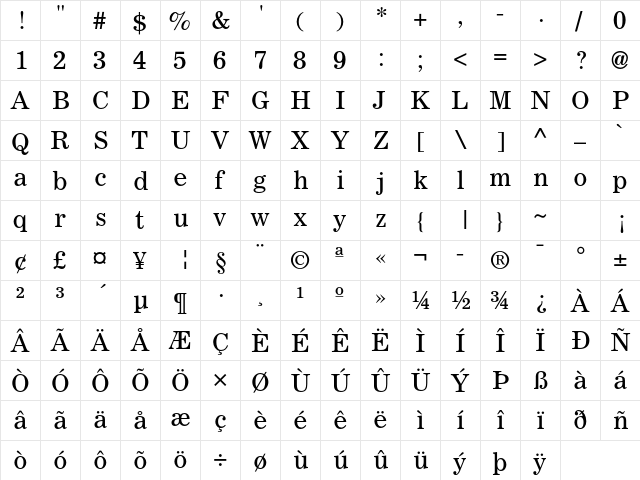
Corona LT Std Regular
| Designer | Chauncey H. Griffith |
Design Context for Corona LT Std Typeface
Corona LT Std offers clean, dependable letterforms without strong stylistic allegiance, making it a practical choice for designers who need flexibility. Its slender proportions lend an understated elegance to any composition.